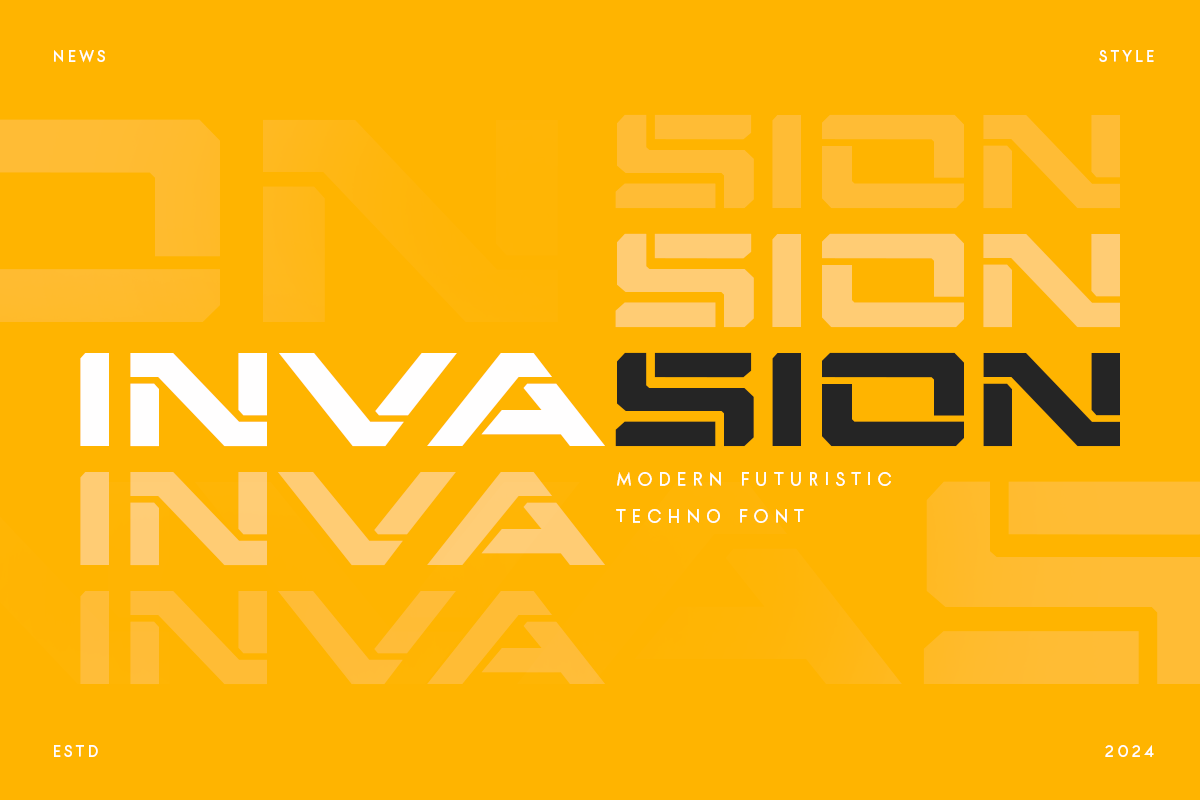
Invasion - Futuristic Techno Font
Transform your tech projects with Invasion – the ultimate futuristic techno font for cutting-edge designs. This modern futuristic typeface is specially crafted for technology, modern, and sci-fi design applications. Perfect for creating standout logos, powerful titles, and eye-catching typography that captures that authentic futuristic aesthetic. Invasion delivers exceptional impact for technology brands, film projects, space themes, and any futuristic concept that demands attention. The contemp...